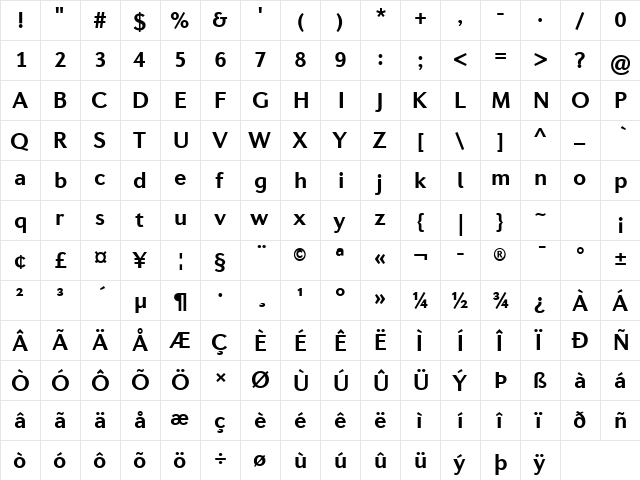
Diverda Sans Com Bold
| Foundry | Linotype GmbH |
| Designer | Daniel Lanz |
Design Context for Diverda Sans Com Typeface
Diverda Sans Com offers clean, dependable letterforms without strong stylistic allegiance, making it a practical choice for designers who need flexibility. Its bold stroke weight gives it real presence on the page.